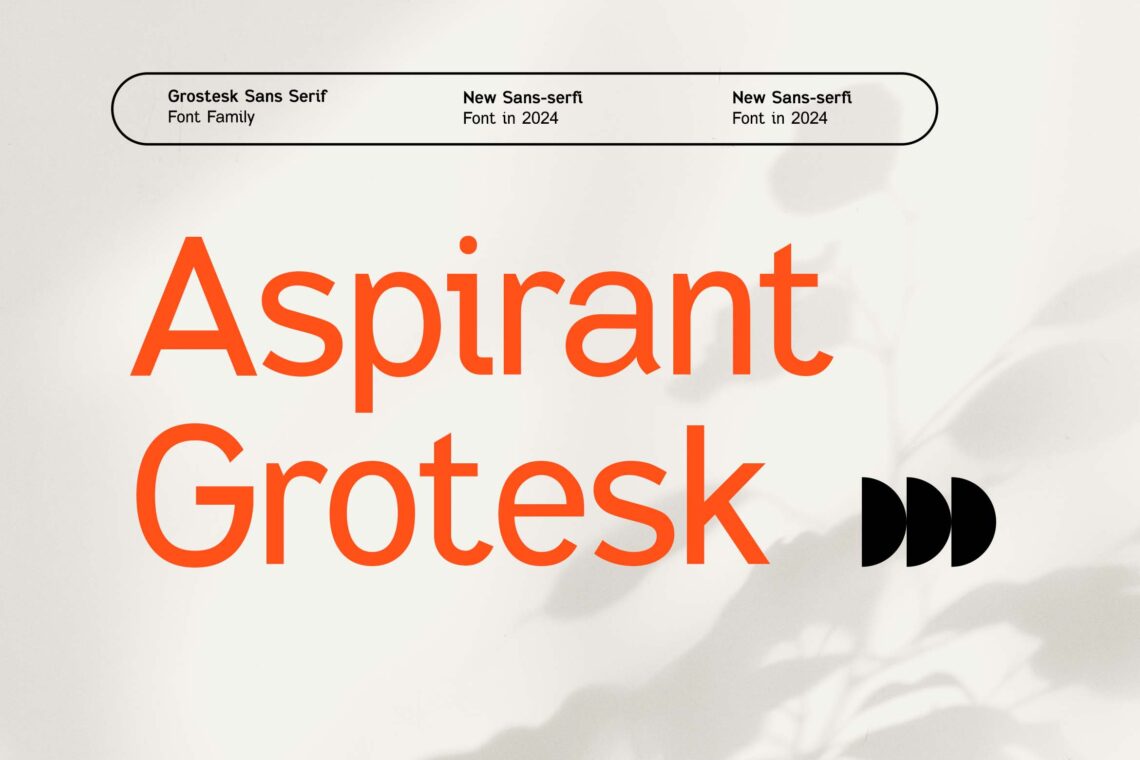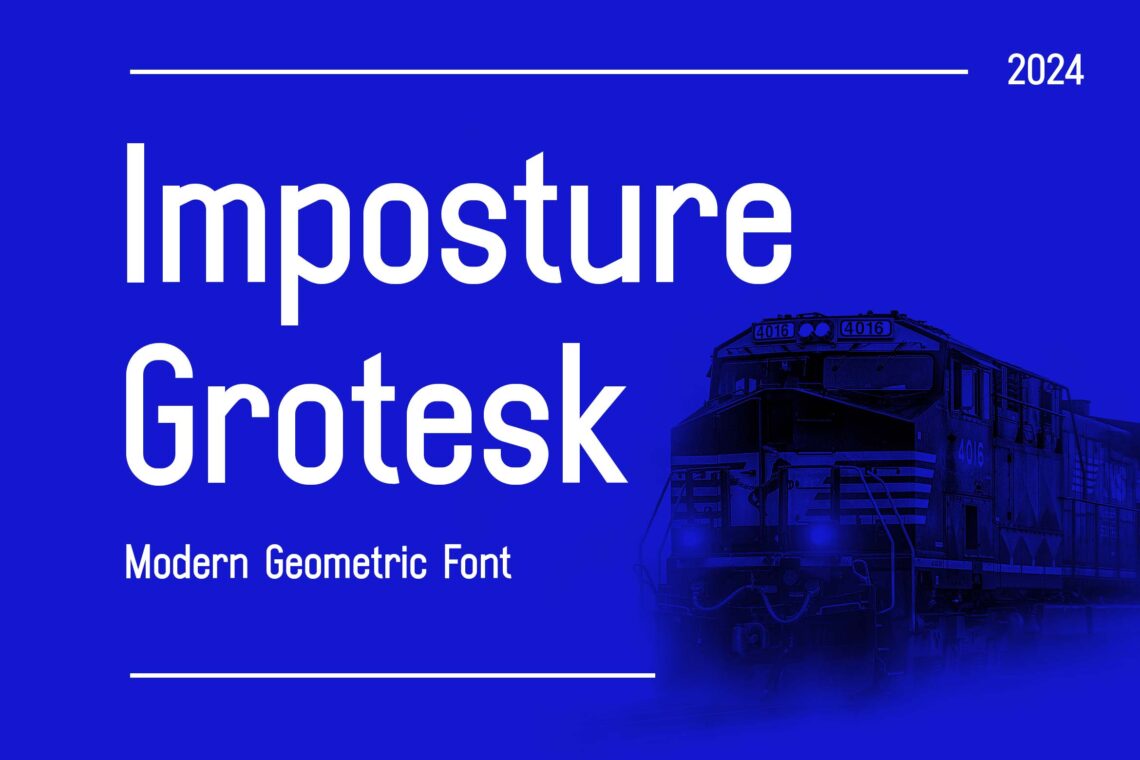
10 Best Font Web Design 2025
In modern web design, typography plays a crucial role in enhancing user experience, readability, and brand identity. Font web design 2025 refers to the latest trends and styles in typography that improve website aesthetics and functionality. With advancements in digital design, fonts are now more dynamic, responsive, and visually appealing.
The right choice of typography can set the tone of a website, making it more engaging and accessible to users. As we move into 2025, web fonts focus on clean, minimalistic, and highly readable styles that work seamlessly across various devices.
10 Best Font Web Design 2025
Here are the 10 best font web design 2025 choices that will define the future of digital typography:
1. Acoquina Grotesk Display Font
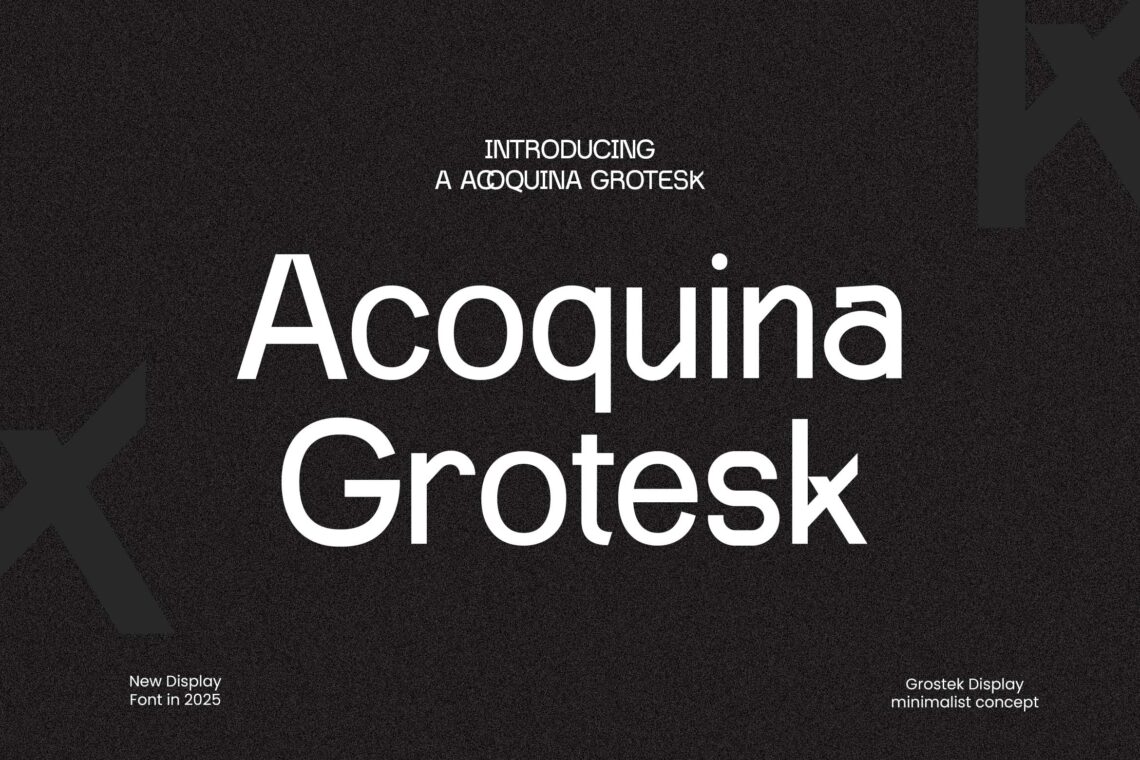
Acoquina Grotesk Display Font is a bold and modern typeface designed for high-impact visuals and contemporary branding. Featuring clean lines, strong geometric shapes, and a touch of elegance, this font is perfect for headlines, posters, logos, and editorial designs. Its versatile and well-balanced letterforms ensure readability while maintaining a striking visual presence. Whether used in fashion, advertising, or creative projects, Acoquina Grotesk adds a sophisticated yet edgy touch to any design composition.
2. Stanzegic Modern Grotesk Font
Stanzegic Modern Grotesk Font is a sleek and contemporary typeface that blends minimalist aesthetics with bold functionality. Designed for versatility, this font features clean lines, balanced proportions, and a modern geometric structure, making it ideal for branding, editorial design, web interfaces, and corporate identities. With its sharp yet elegant appearance, Stanzegic ensures readability while maintaining a sophisticated and professional look. Whether used for headlines, logos, or body text, this font adds a touch of modernity and refinement to any creative project.
3. Gapickle Casual Modern Grotesk Family Font
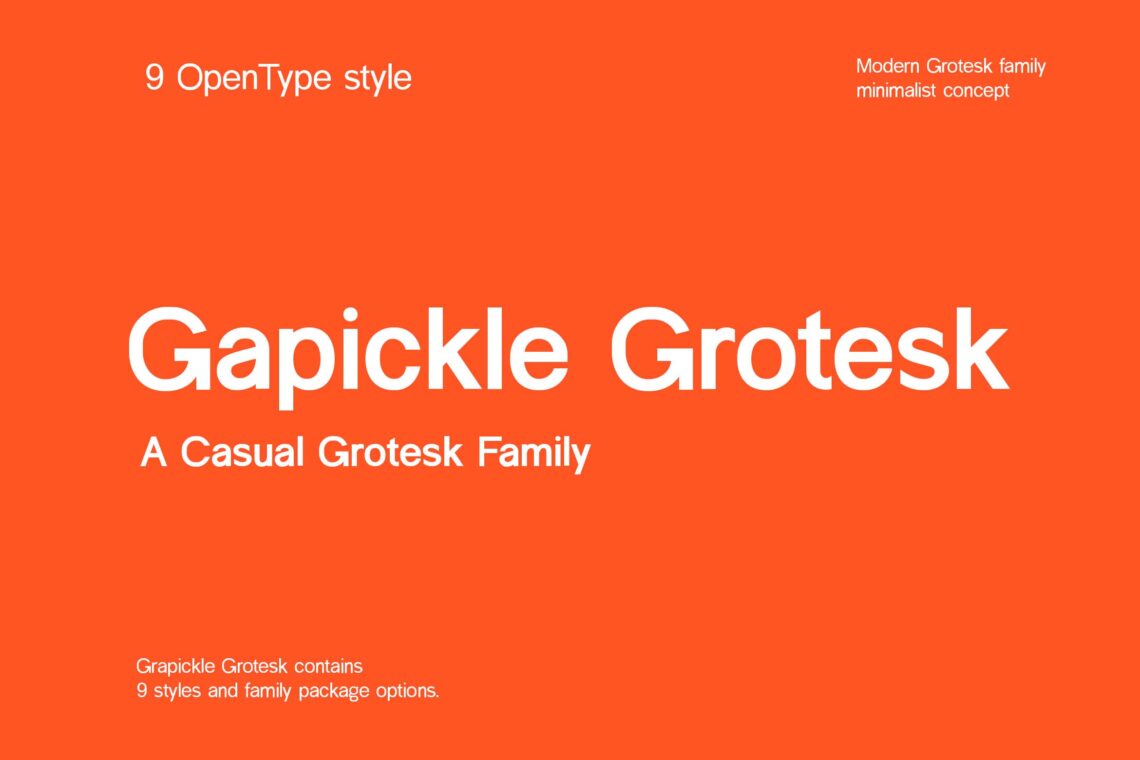
Gapickle Casual Modern Grotesk Font is a stylish and versatile typeface that combines a contemporary aesthetic with a relaxed, approachable feel. Featuring smooth curves, clean lines, and well-balanced letterforms, this font is perfect for branding, social media graphics, editorial layouts, and web design. Its casual yet modern look makes it ideal for both professional and creative projects, offering excellent readability and a fresh visual appeal. Whether you’re designing for fashion, lifestyle, or tech industries, Gapickle brings a perfect blend of modern sophistication and effortless charm to any design.
4. Workmates Modern Grotesk Family Font
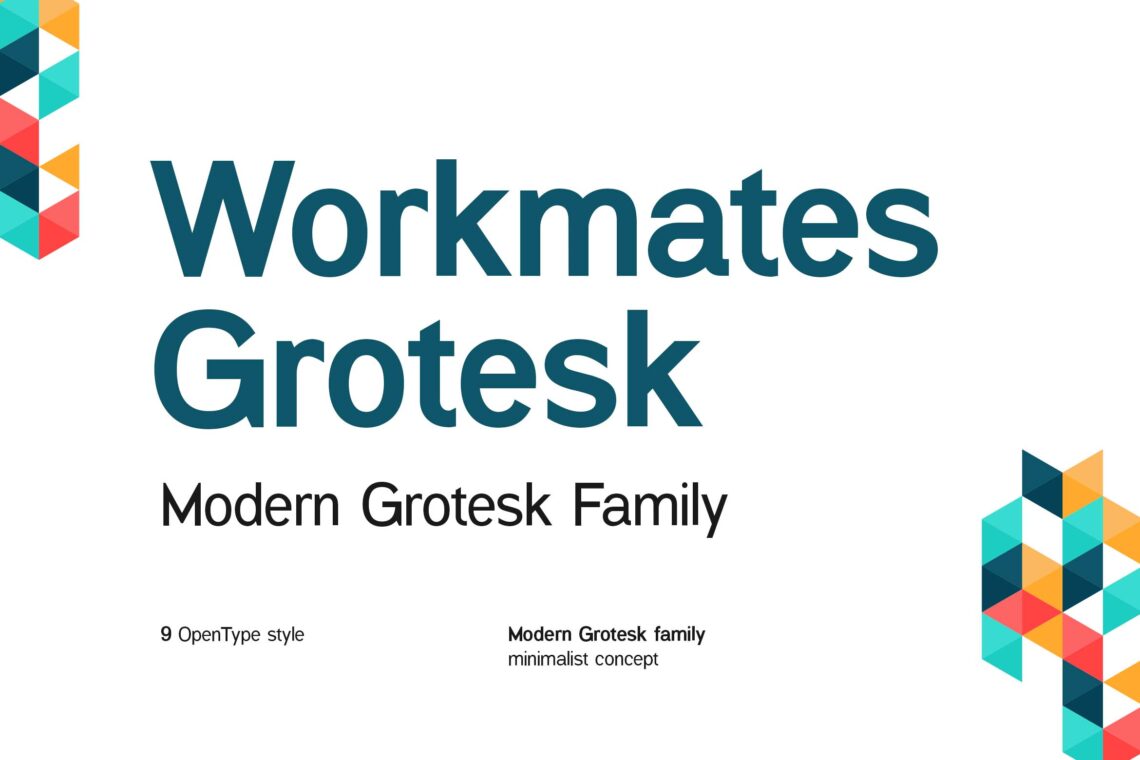
Workmates Modern Grotesk Family Font is a sleek and highly versatile typeface designed for contemporary branding, editorial layouts, and digital interfaces. With its clean lines, balanced letterforms, and subtle geometric touches, this font family offers a perfect blend of professionalism and modern aesthetics. Ideal for corporate identities, marketing materials, websites, and UI/UX design, Workmates ensures clarity and readability while maintaining a refined, stylish appeal. Whether you’re crafting bold headlines or elegant body text, this font family provides a dynamic and polished typographic solution for any creative project.
5. Patronize Classic Modern Grotesk Font
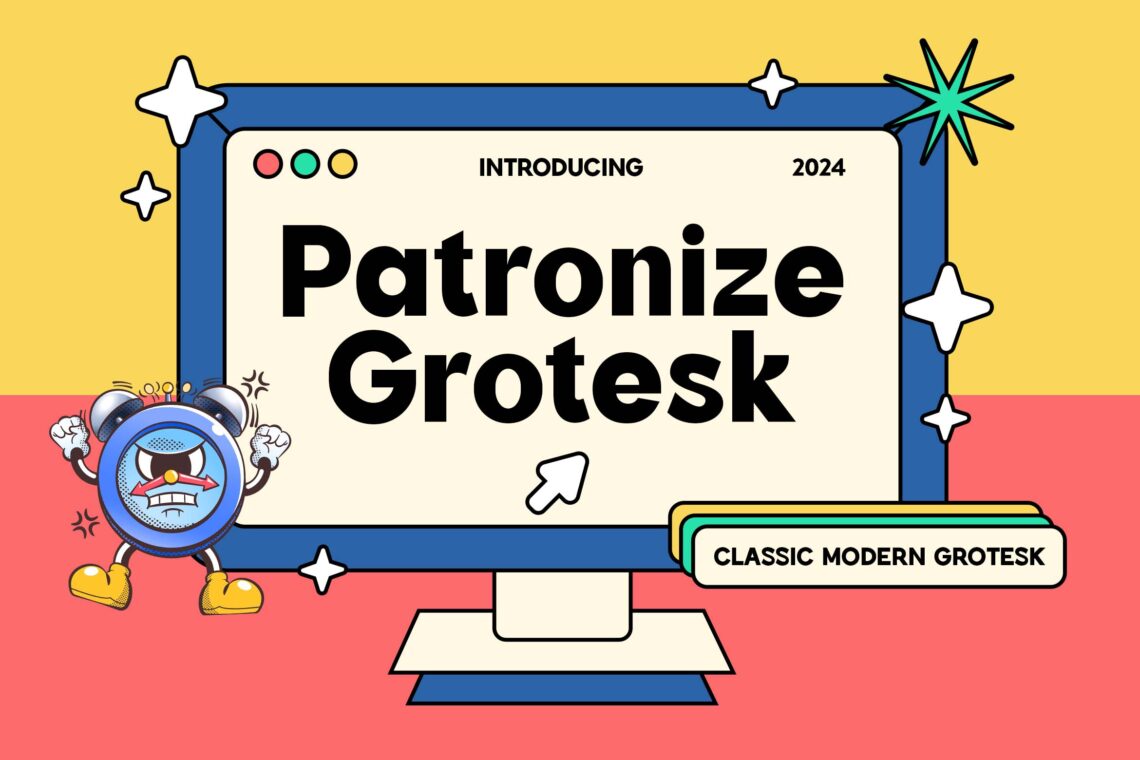
Patronize Classic Modern Grotesk Font is a refined and versatile typeface that merges timeless elegance with contemporary design. Featuring clean, balanced letterforms and a subtle geometric structure, this font is perfect for branding, editorial layouts, corporate identities, and digital interfaces. With its classic yet modern aesthetic, Patronize ensures excellent readability while maintaining a sophisticated and professional look. Whether used for bold headlines, sleek logos, or minimalist body text, this font brings a touch of prestige and modernity to any creative project.
6. Bombard Grotesk Modern Font Family
Bombard Grotesk Modern Font Family is a bold and versatile typeface designed for high-impact visuals and contemporary design projects. With its clean geometric structure, sharp edges, and well-balanced proportions, this font family is perfect for branding, editorial layouts, web design, and advertising. Its modern yet timeless aesthetic ensures readability while adding a strong visual presence to headlines, logos, and display typography. Whether you’re creating sleek corporate identities or eye-catching marketing materials, Bombard Grotesk delivers a perfect blend of sophistication and functionality for any creative endeavor.
7. Overmature Grotesk Display Font Family
Overmature Grotesk Display Font Family is a bold and distinctive typeface that combines modern aesthetics with a touch of vintage charm. Designed for high-impact visuals, this font family features strong geometric forms, sharp edges, and balanced proportions, making it ideal for branding, editorial design, posters, and digital media. With its unique character and versatile style, Overmature Grotesk delivers both sophistication and attitude, ensuring your typography stands out in any creative project. Whether you’re crafting striking headlines, stylish logos, or contemporary marketing materials, this font family offers a perfect balance of elegance and boldness.
8. Poligrapher Grotesk Display Font Family
Poligrapher Grotesk Display Font Family is a modern and dynamic typeface designed for bold and impactful typography. Featuring clean geometric shapes, sharp details, and a well-balanced structure, this font family is perfect for branding, editorial layouts, posters, and digital media. Its versatile design ensures strong readability while maintaining a contemporary and stylish appeal. Whether used for striking headlines, minimalist logos, or eye-catching marketing materials, Poligrapher Grotesk adds a sophisticated yet edgy touch to any creative project.